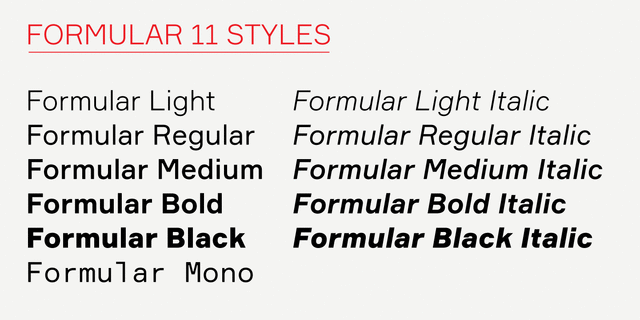
Formular (11 fonts)
About FormularIf you were a grotesque in mid-20th-century Switzerland, you were expected to be serious and proper, if a little dull. Unlike its dogmatic Modernist predecessors, Formular is a hip Swiss sans serif of the new generation. Inspired by the utilitarian 19th-century grotesques, its precision and and versatility are combined with a slightly eccentric character. A child of its time, it scoffs at the ideology of ‟ideal” forms, yet it is every bit as functional for all its idiosyncrasies, as any self-respecting Swiss sans.
Formular comes in five weights with corresponding italics and a monospace companion to the regular weight. Each weight includes special extra-light punctuation, lining tabular and old style figures, case-sensitive punctuation, and stylistic alternates. Designed by Vyacheslav Kirilenko & Gayaneh Bagdasaryan, 2014.
Features of font family FormularThe hit of the decade:
Associations for font family FormularTypeface personality and character: